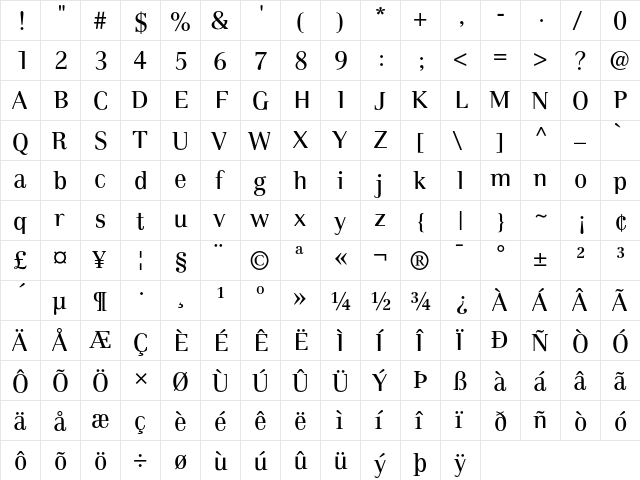
NEWCENT Roman
Design Context for NEWCENT Typeface
NEWCENT takes a measured approach to typography — its balanced proportions and neutral character make it a reliable workhorse for both digital and print work.